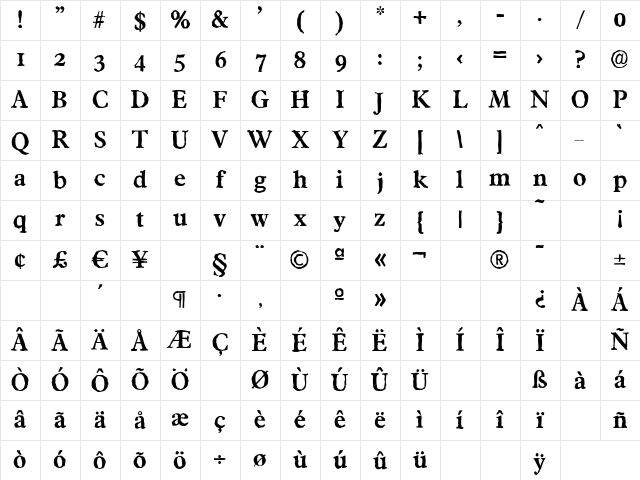
FranciscoAntique Bold
FranciscoAntique Family
Design Context for FranciscoAntique
FranciscoAntique wears its vintage influences proudly, with letterforms that recall mid-century signage, classic packaging, and nostalgia-driven design. Its bold stroke weight gives it real presence on the page.
Font Pairing: Combine FranciscoAntique with a simple slab or neutral sans - period-accurate companions reinforce the vintage feel without competing for attention.
Pro Tip: Lean into FranciscoAntique's period character by pairing it with aged paper textures, muted colour palettes, and vintage illustration styles.